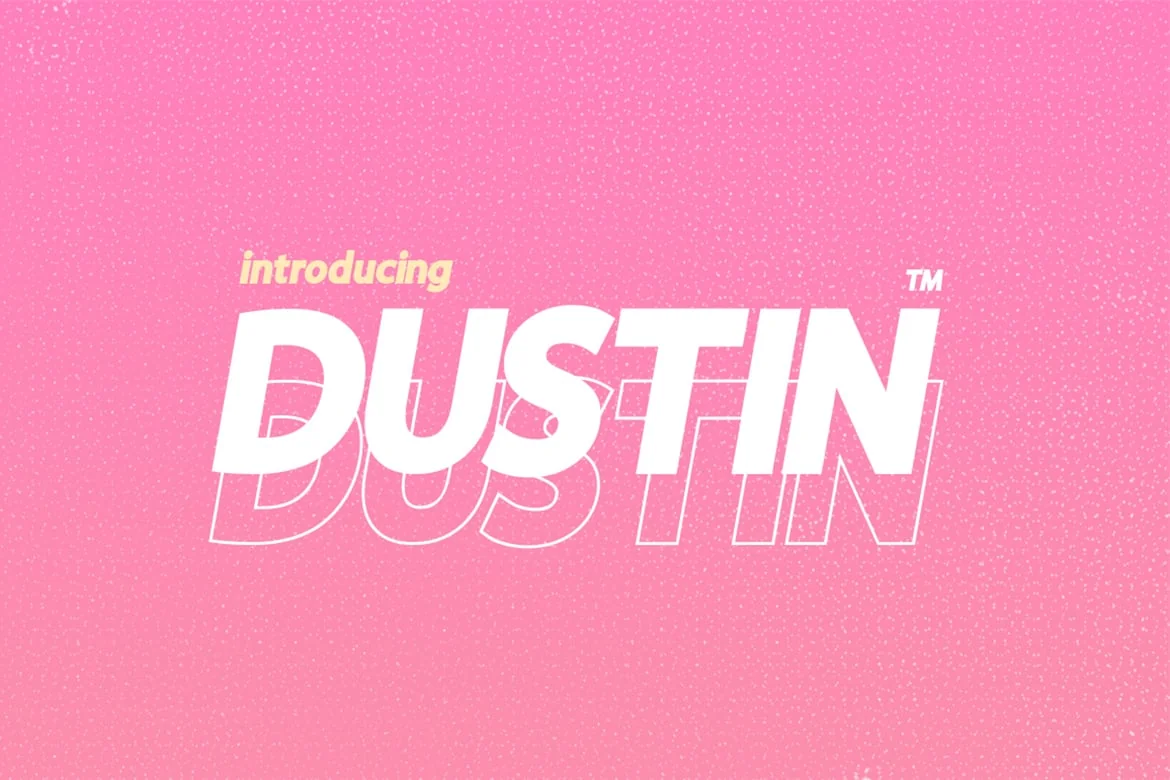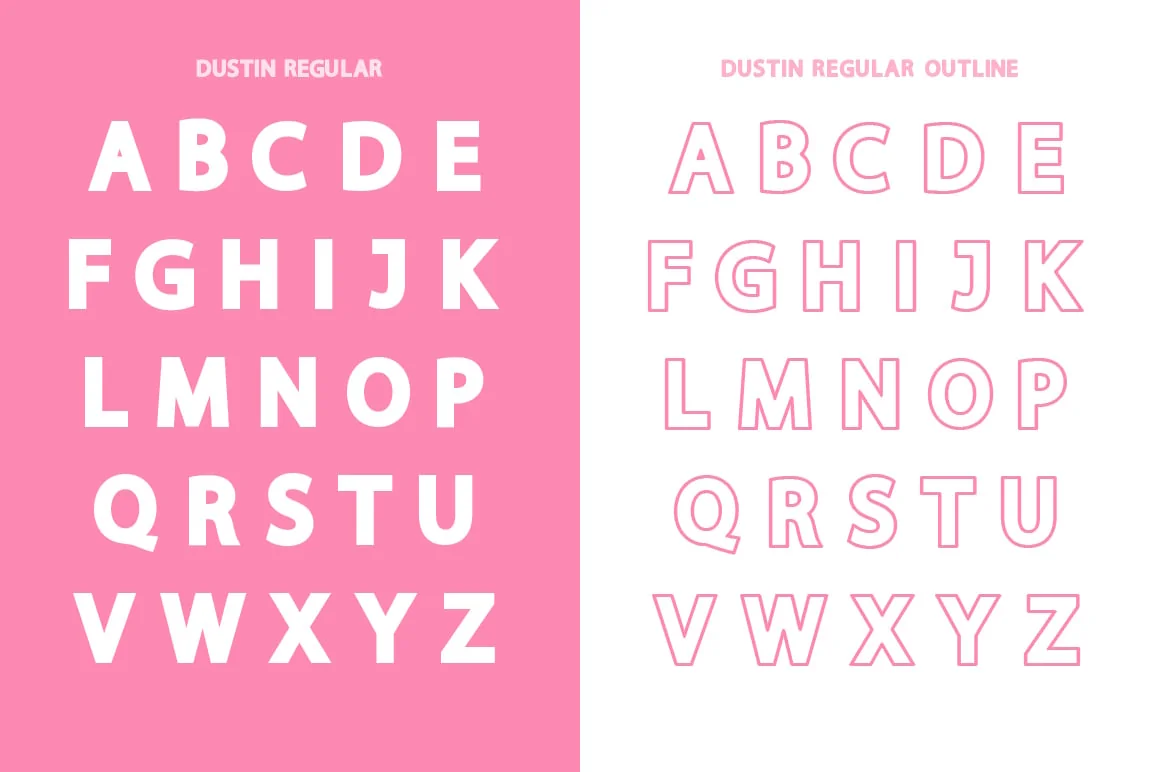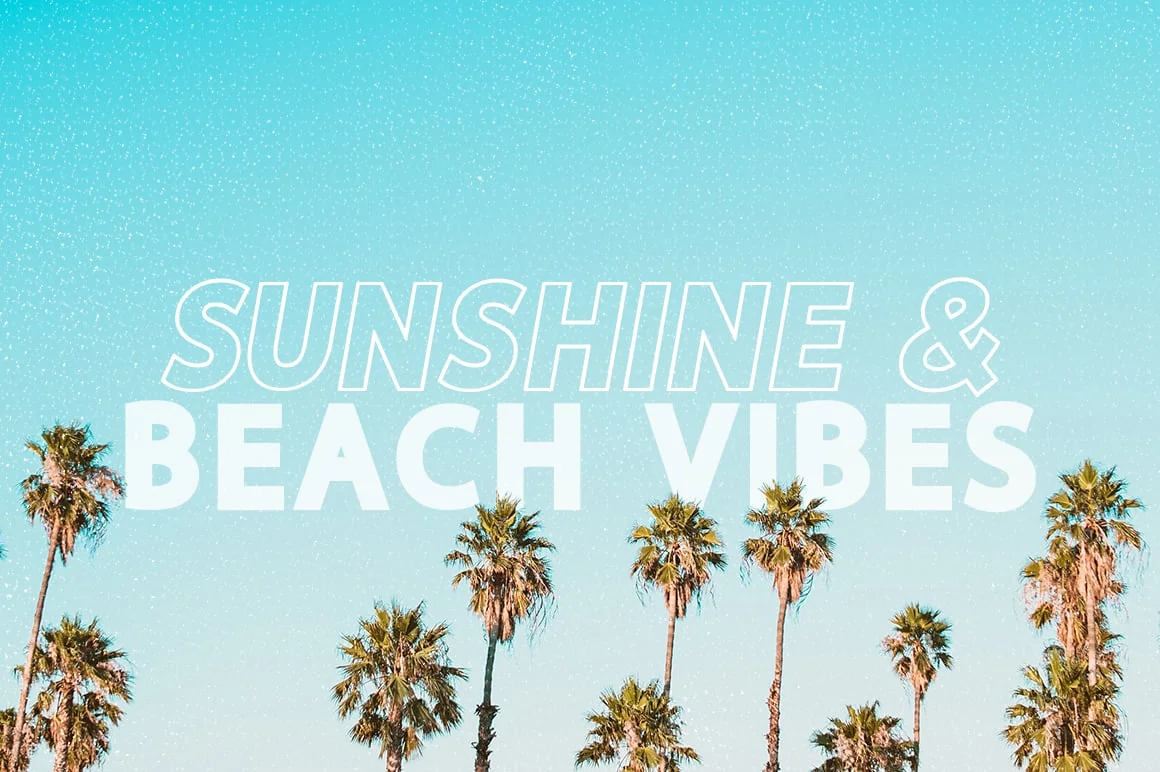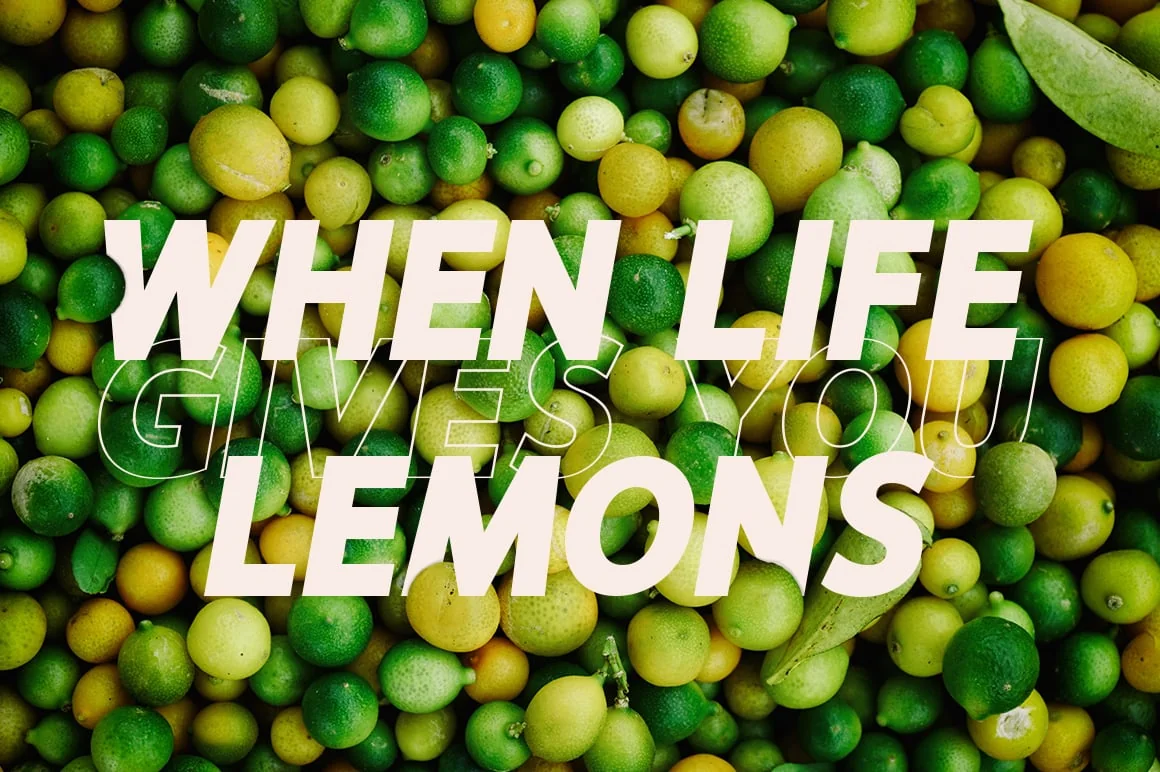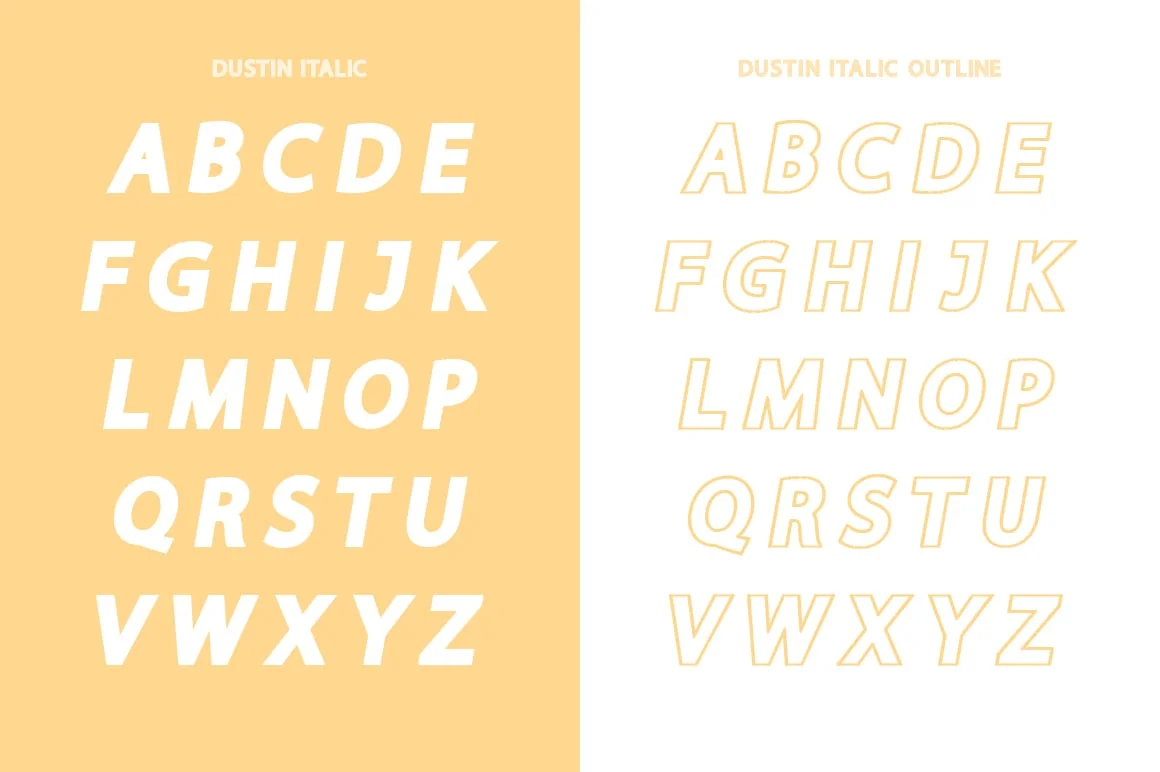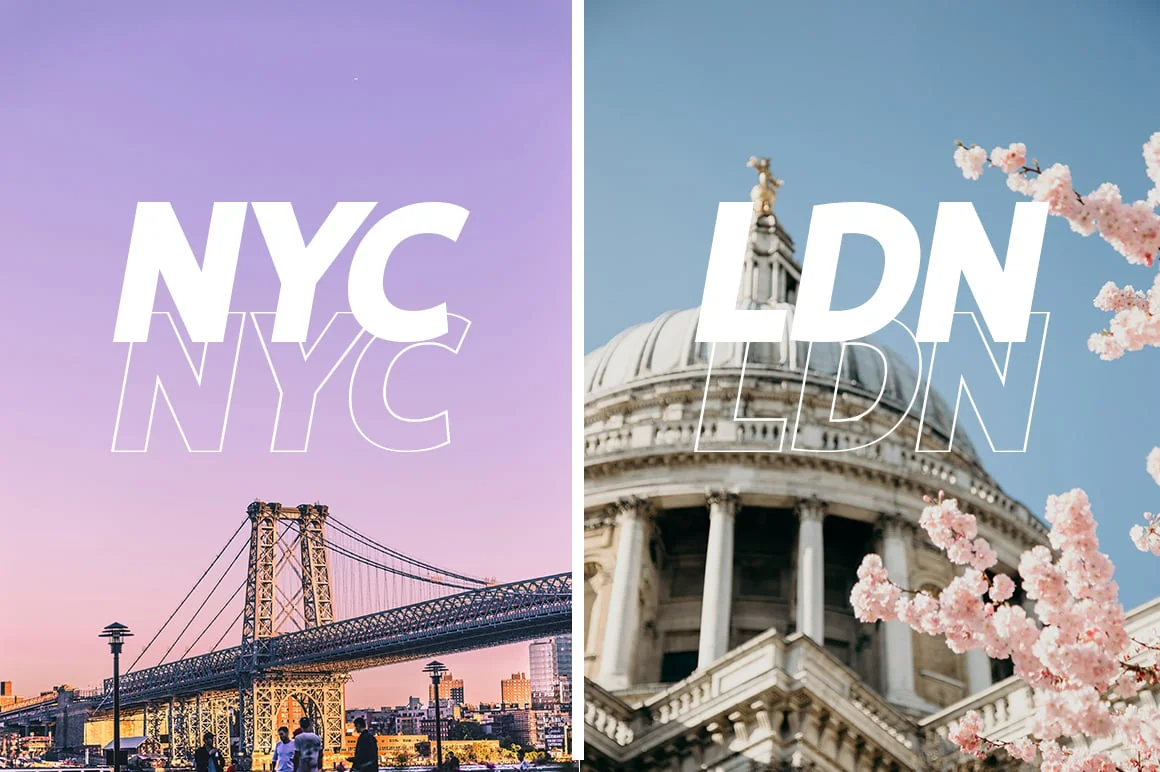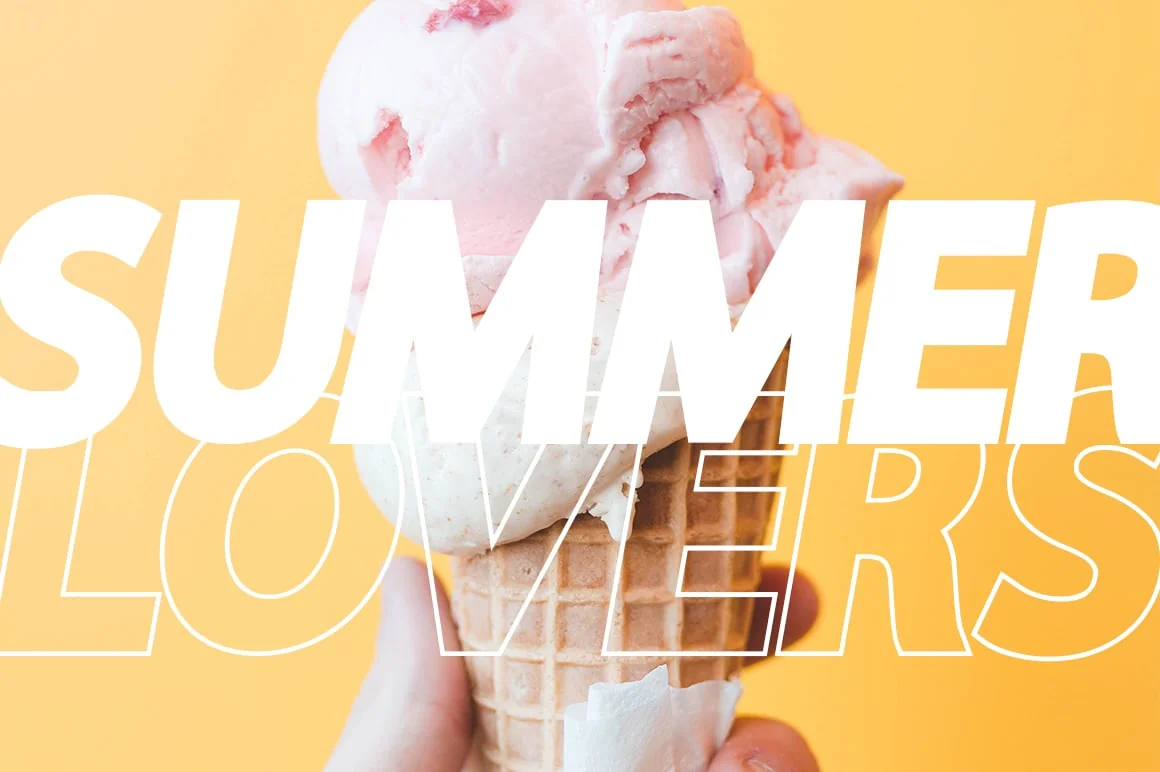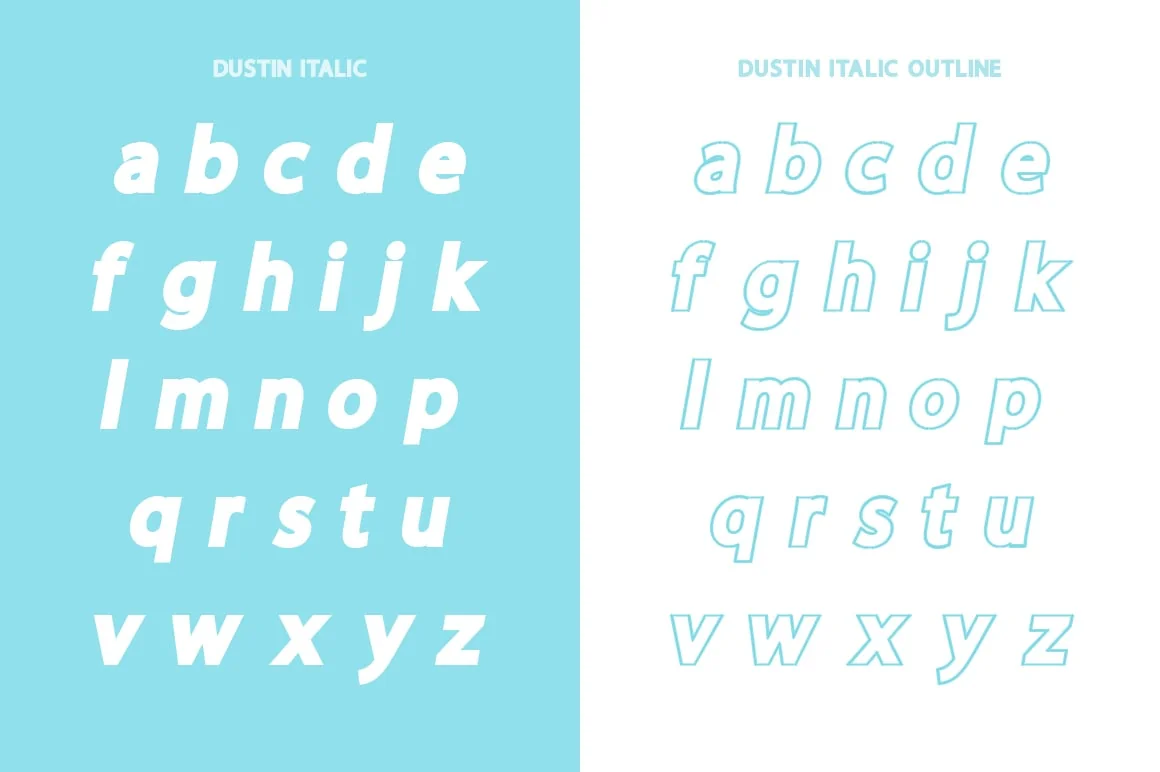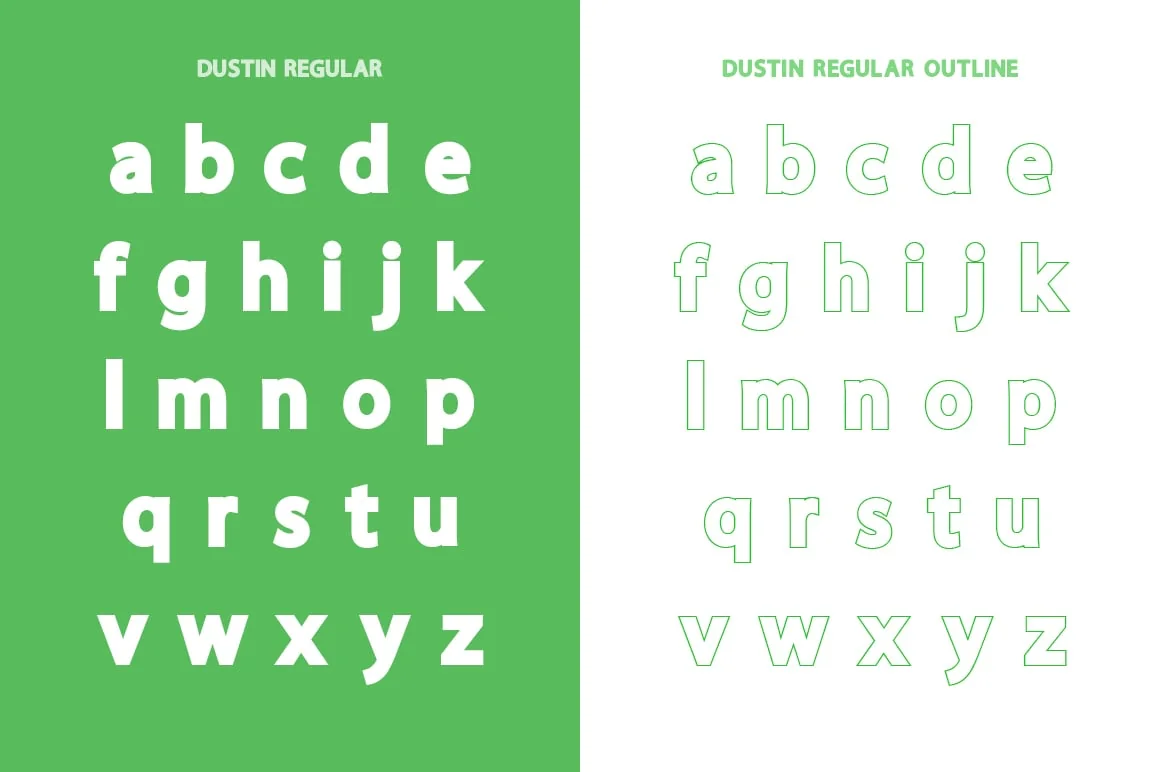
Dustin Font Family
Introducing the brand new Dustin Font Quartet. This beautiful and professional typeface family includes 4 alternate fonts. Dustin Regular and Dustin Italic, which are both included in regular filled and outline versions. Combine each font together to create stunning designs.